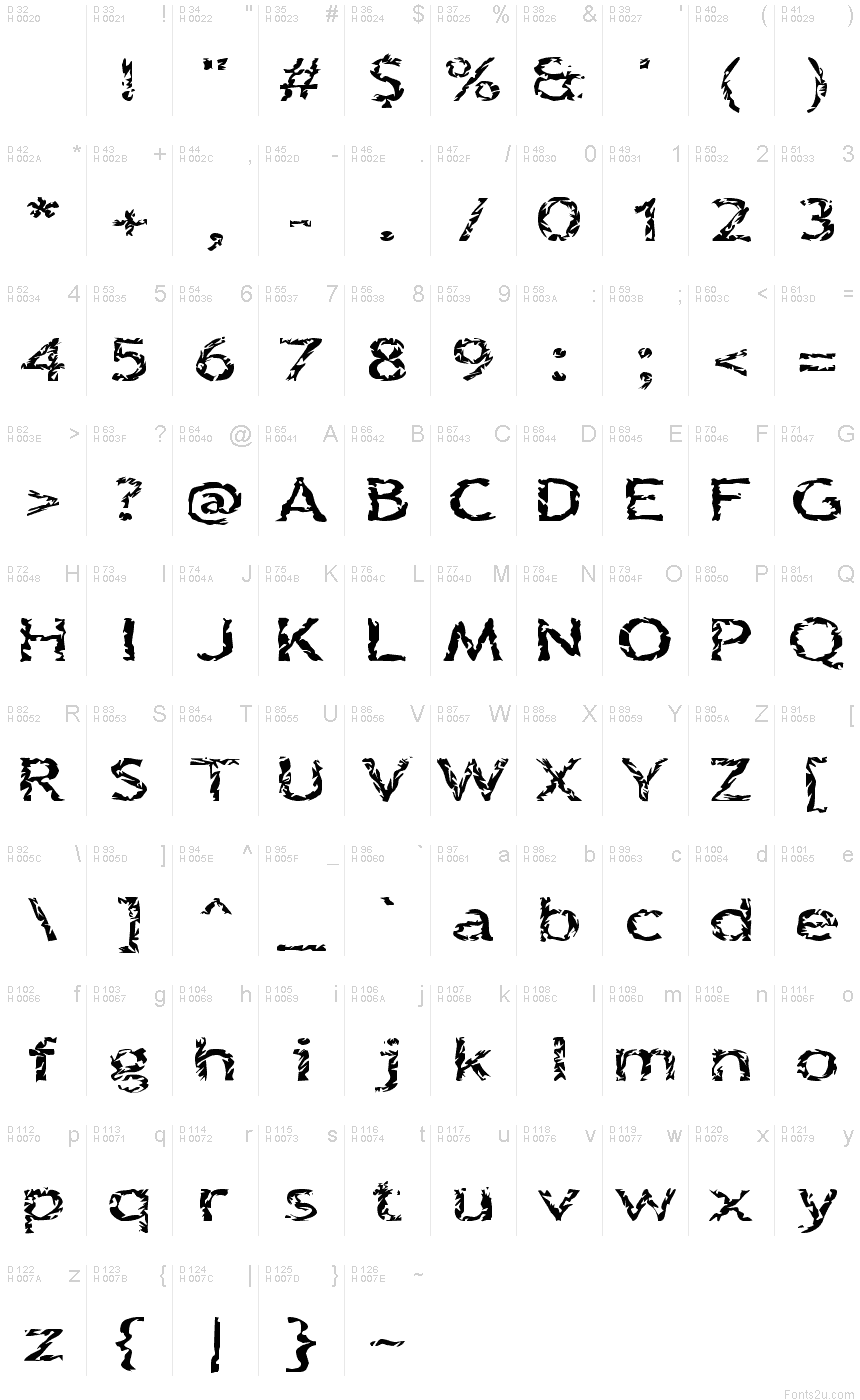
Quinquefoliolate
Quinquefoliolate is Ray Larabie's free botanical eroded display font, and it looks like the letters have been overgrown with torn leaves and thorny vine tips. The shapes feel wild and ragged rather than merely distressed, with rounded forms constantly bitten into by sharp sprouts that give the whole font a brambly, organic rhythm.
It fits poster work, album covers, book jackets, event flyers, and title cards that want something plant-like but not sweet. As a free font, it also works well for logos, short headlines, and monogram-style marks, because the leafy erosion gives even a few letters a dense, tangled silhouette.